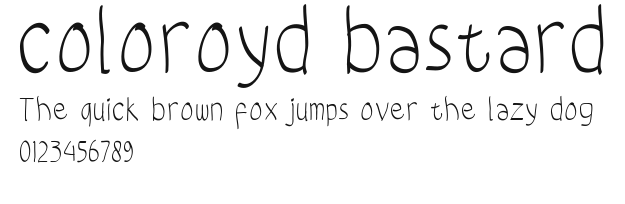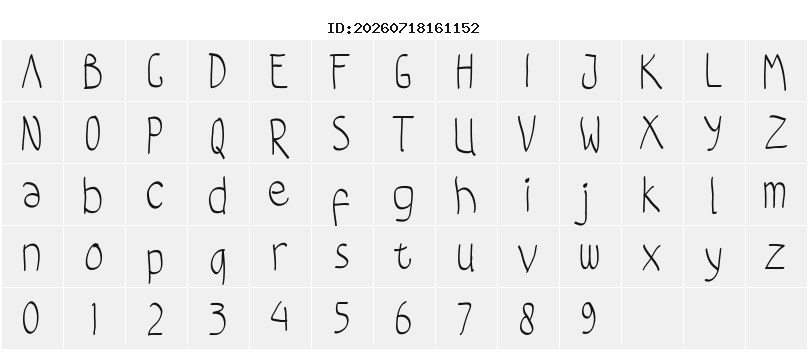
• Font Name: coloroyd bastard
• Font Style: Light
• Full Font Name: coloroyd bastard Light
• PostScript Name: coloroydbastard-Light
• Designer: Roy Bayu Putra
• Manufacturer: Roy Bayu Putra
About coloroyd bastard.ttf
coloroyd bastard.ttf is a modern, elegant sans-serif font designed for ultimate readability and visual harmony. Perfect for branding, headlines, web design, and print materials.